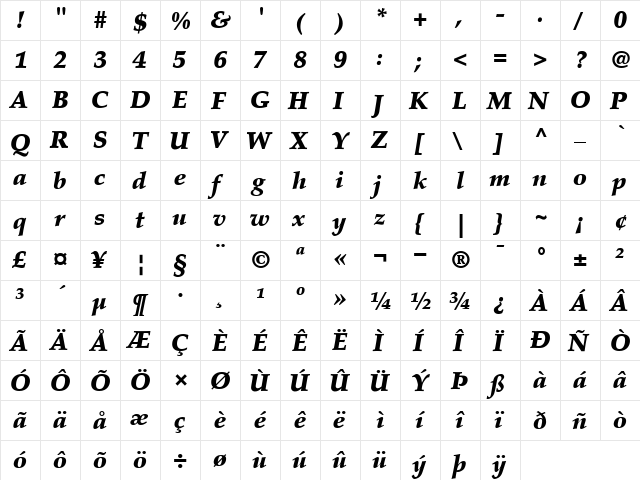
Palatino-Black BlackItalic
Design Context for Palatino-Black Typeface
Palatino-Black is a composed and adaptable typeface that performs quietly and consistently across a wide range of design contexts. Its italic angle brings a sense of urgency and motion to the letterforms.
Pro Tip: Use Palatino-Black for emphasis, pull quotes, and subheadings where its slanted energy can add rhythm to the layout.